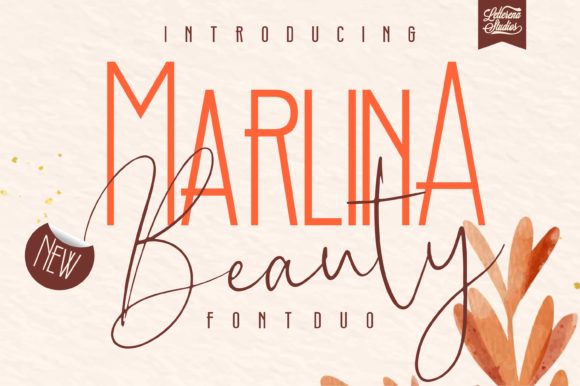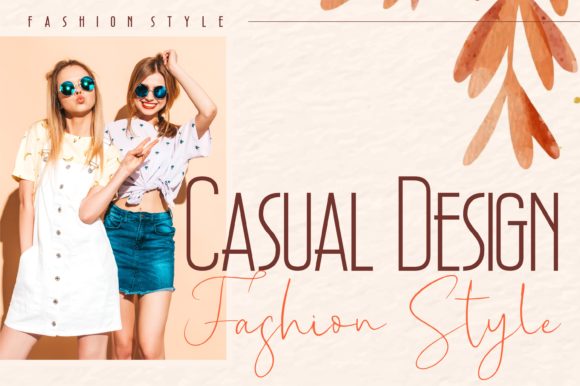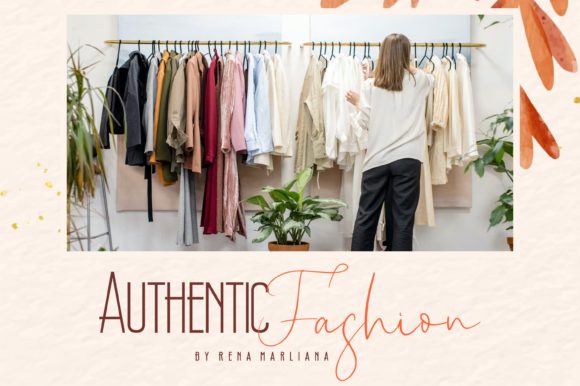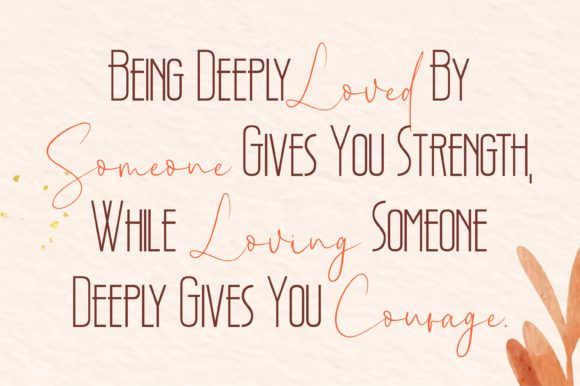
About Marlina Beauty Font
Marlina Beauty is a beautiful duo font (handwritten and sans serif). It looks stunning on wedding invitations, thank you cards, quotes, greeting cards, logos, business cards and every other design which needs a versatile touch.